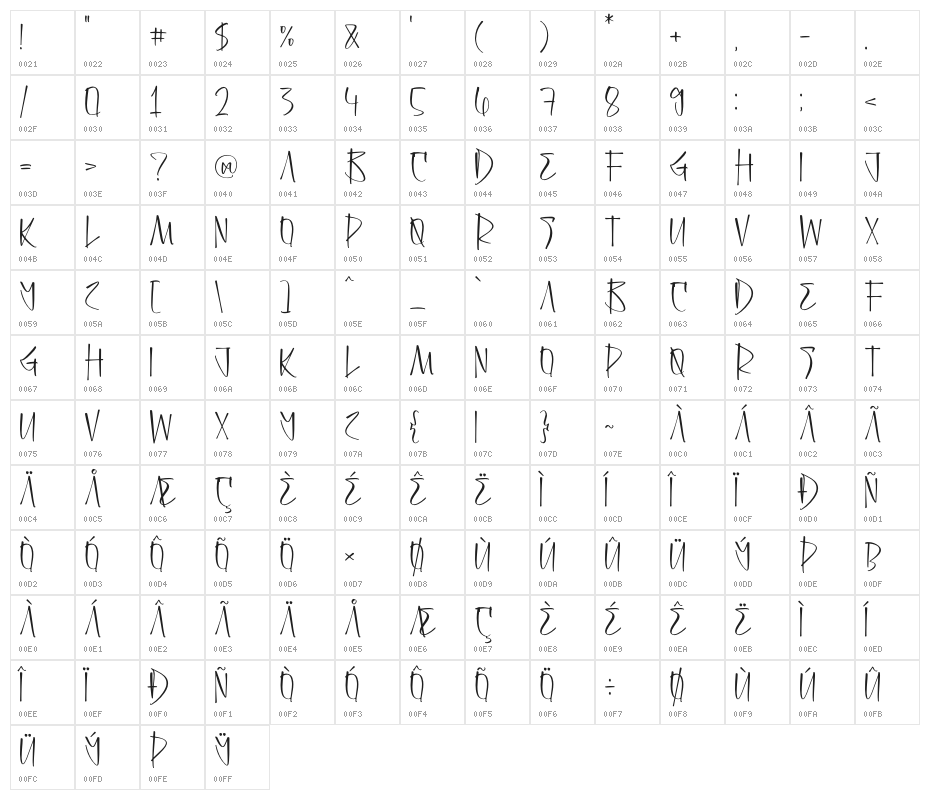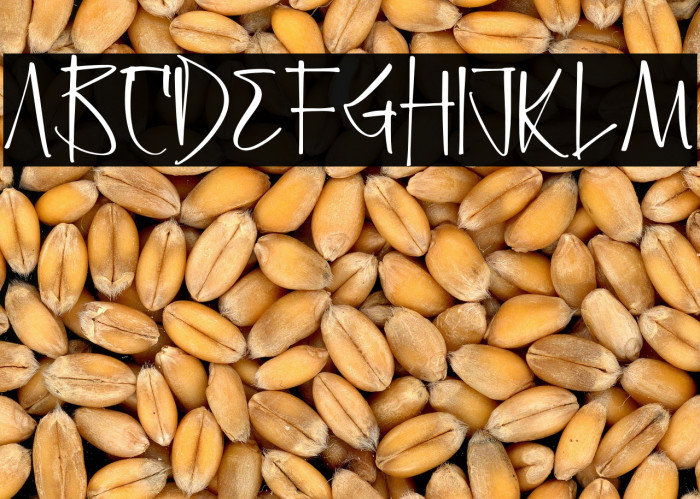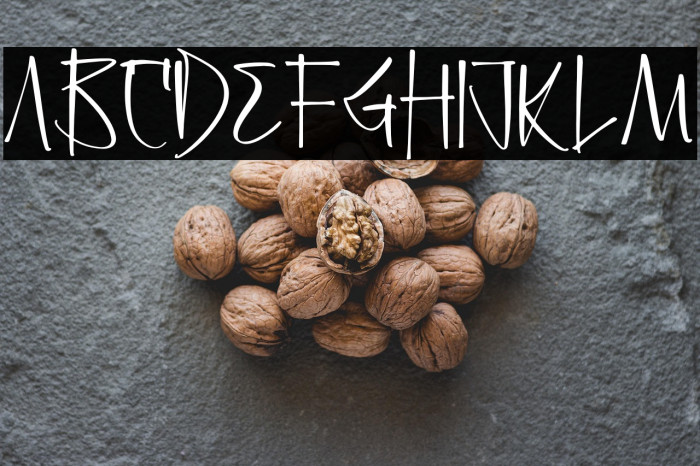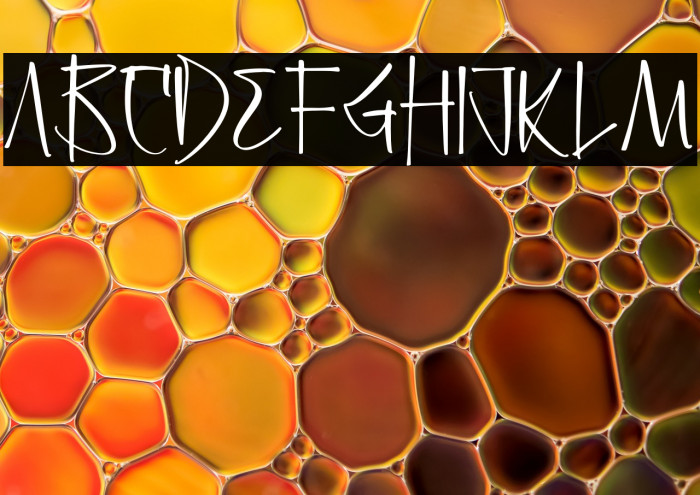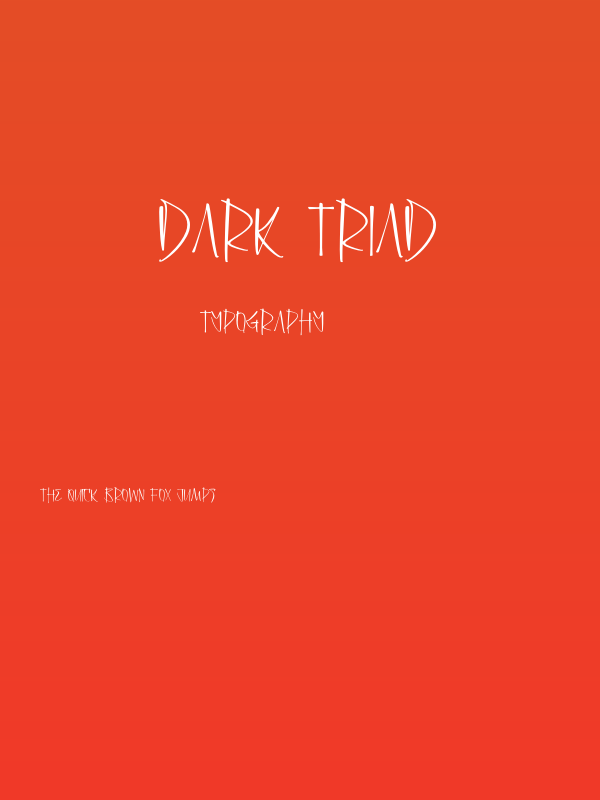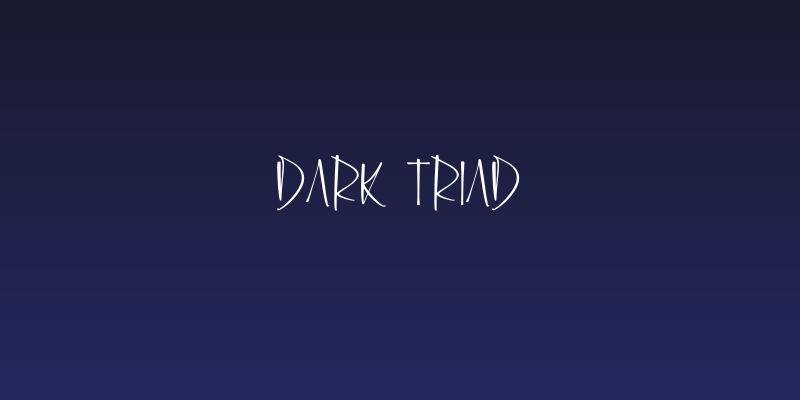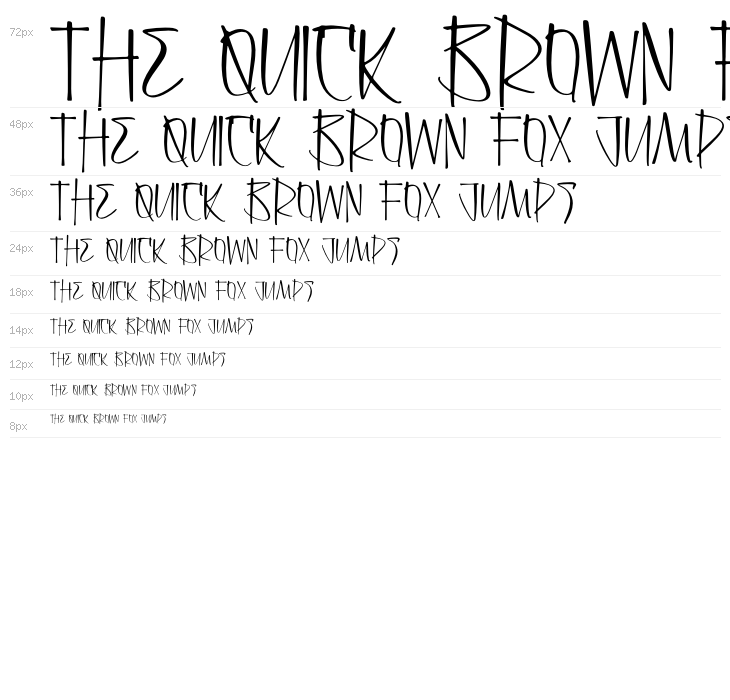
Dark Triad Font
Dark Triad Description
This font exhibits a unique, edgy style with a handwritten appearance. The characters are elongated and slightly irregular, giving it a dynamic and expressive look. The uppercase letters are tall and narrow, while the lowercase letters maintain a consistent flow, enhancing the font's overall cohesiveness. Numbers and special characters follow the same aesthetic, ensuring uniformity across all glyphs. The strokes are thin, with a slight variation in thickness that adds a subtle contrast without overwhelming the design. This font's distinctive style makes it suitable for creative projects that require a personal touch.
| Overall Style | Modern, Artistic |
| Proposed Projects | Ideal for artistic projects, branding, posters, and invitations that seek a personal, creative flair. |